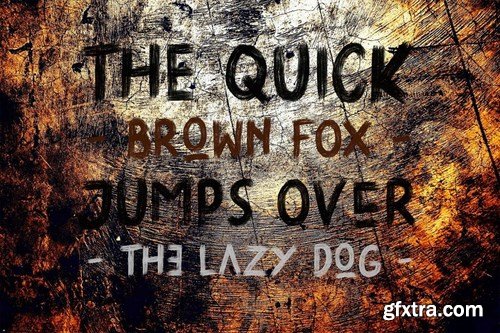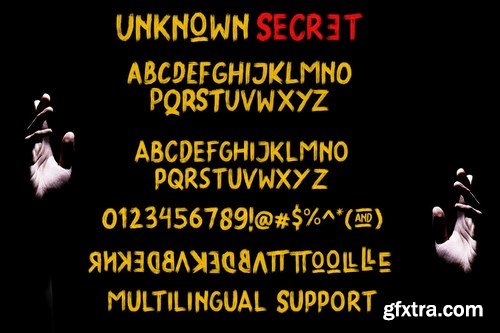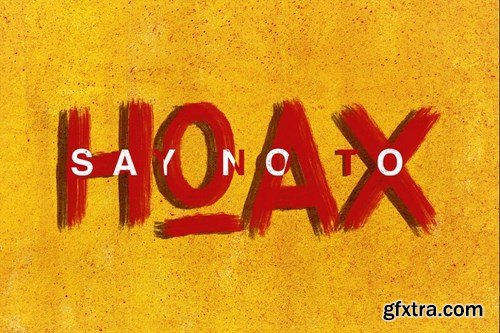
Unknown Secret Brush (OpenType-SVG), uses new technology that makes the way for more authentic looking fonts and natural texture strokes will definitely attract the attention of customers and designers. Each letter is drawn repeatedly until it is considered feasible and perfect, and then edited to get a truly perfect texture. Unknown Secret font is also experimental, only working on Mac Photoshop, Illustrator, and some other native Mac apps. PC user bitmap font works in Photoshop CC2017+ Windows does not support bitmap fonts, so you will not see the letters you are compiling installing fonts. In Photoshop CC2017+
Your non-Mac users can still use fonts but in different ways You can see traditional vector letters in the font preview window at the bottom of this post. Still has a lot of terrible details. Want Extra Grunge? I also changed the font to a traditional black and white font that will work on Windows and Macs in any app. OpenType SVG included
Standard glyphs
Ligatures
Alternates